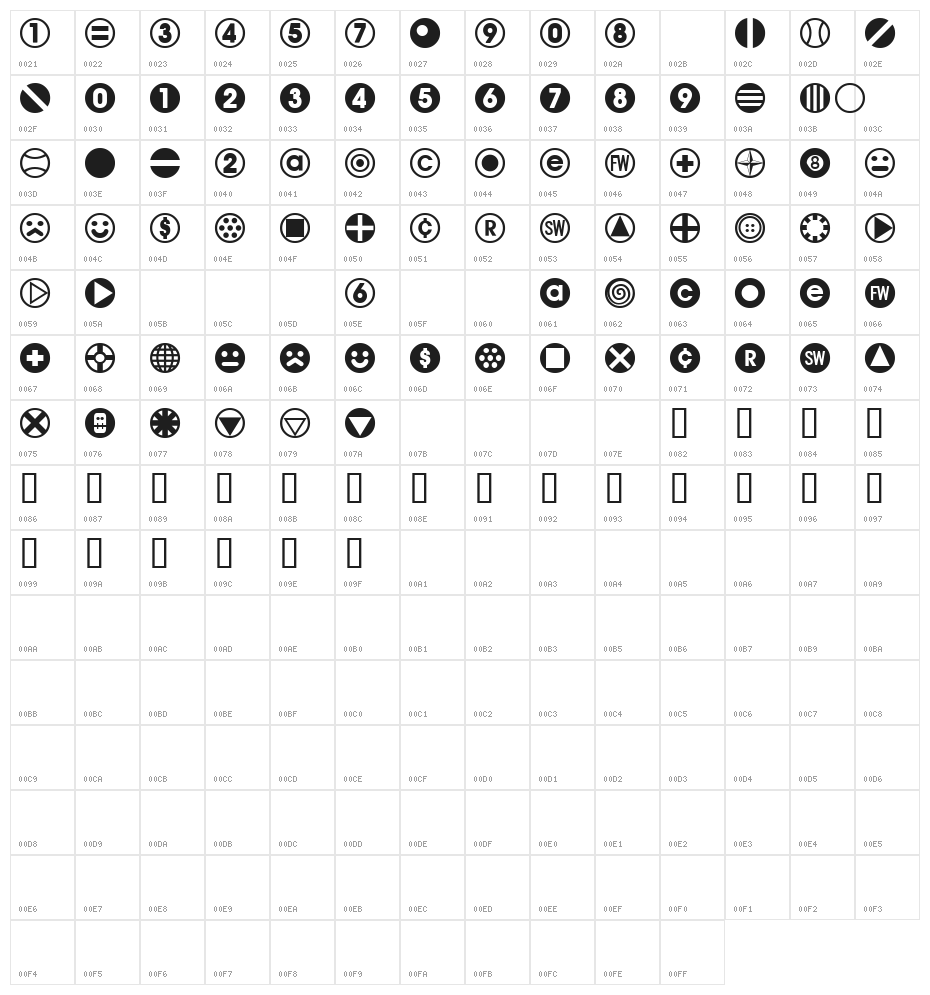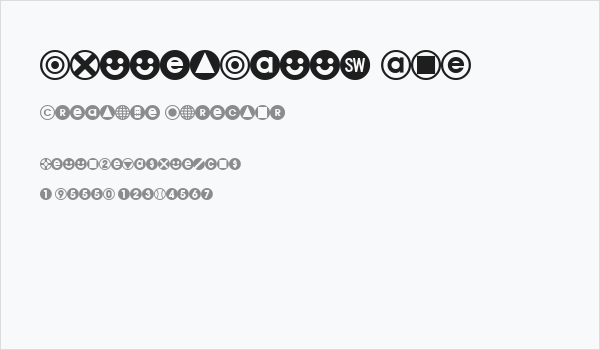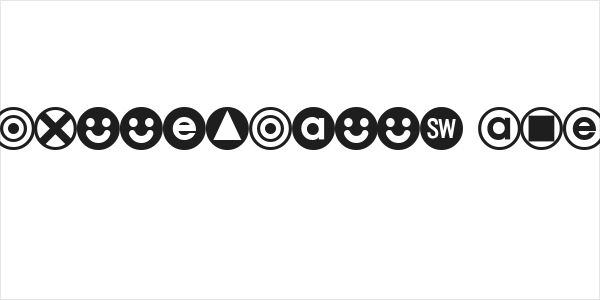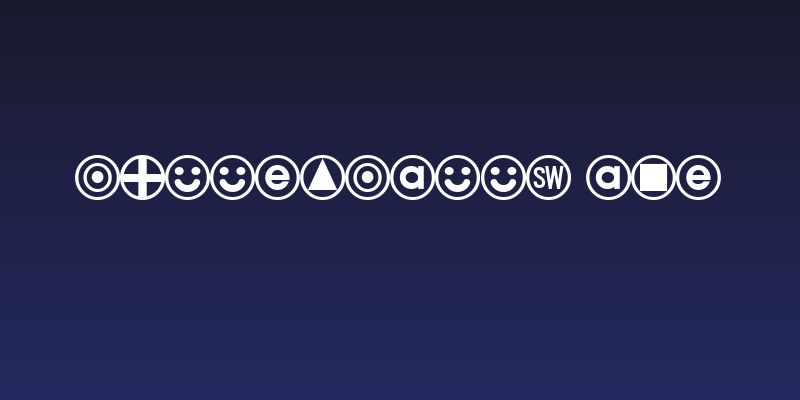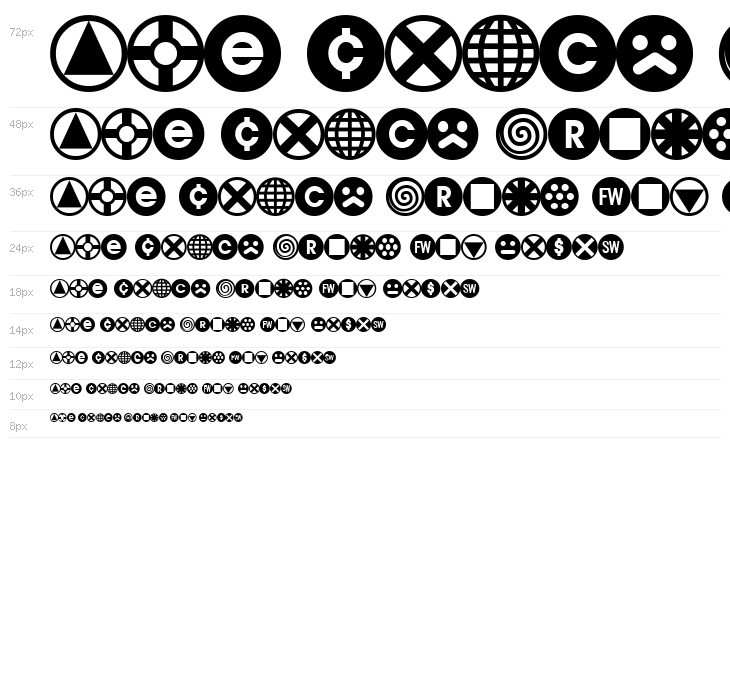
BulletBalls AOE Font
BulletBalls AOE Description
This font features a unique and playful design where each character is enclosed within a circular shape, creating a bold and eye-catching appearance. The characters are stylized with various geometric patterns and symbols, adding a decorative and whimsical touch. The font includes both uppercase and lowercase letters, numbers, and a variety of special symbols, all maintaining the circular motif. The boldness of the characters ensures high visibility, making it suitable for creative and unconventional design projects.
| Use Case | Logos, Posters, Creative Designs |
| Proposed Projects | Ideal for children's books, playful branding, posters, and creative digital designs. |